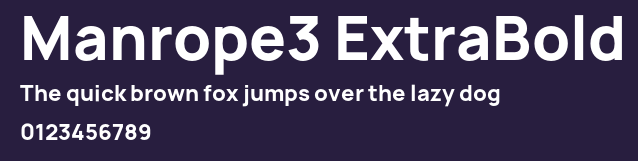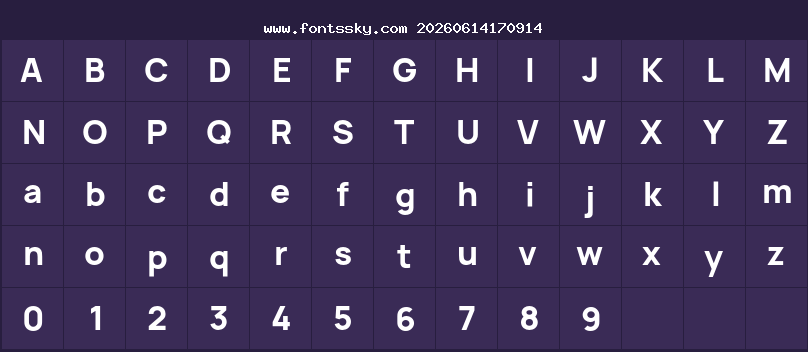
Manrope3 ExtraBold Preview
• Font Name: Manrope3 ExtraBold
• Full Font Name: Manrope3 ExtraBold
• PostScript Name: Manrope3-ExtraBold
• Designer: Mikhail Sharanda
• Manufacturer: Mikhail Sharanda
About Manrope3 ExtraBold.otf
Manrope3 ExtraBold.otf is a modern, elegant sans-serif font designed for ultimate readability and visual harmony. Perfect for branding, headlines, web design, and print materials.